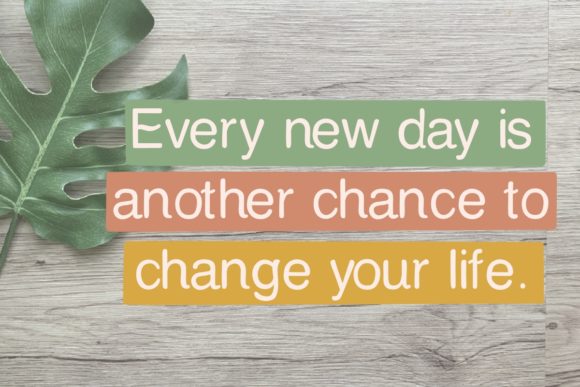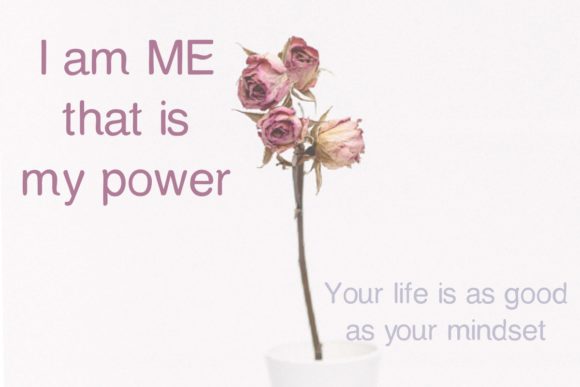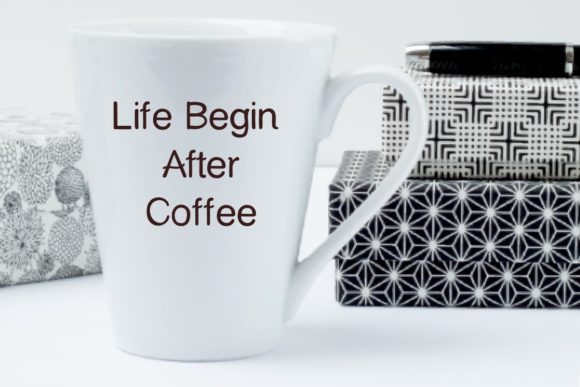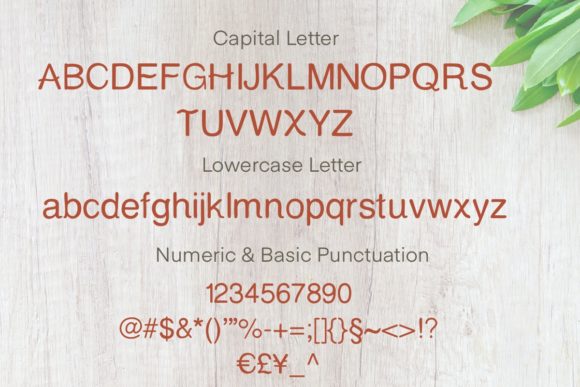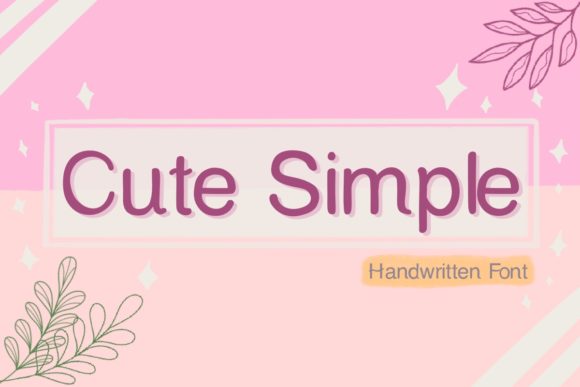
Cute Simple Font: Elevate Your Designs with a Minimal and Neat Handwritten Style
Are you tired of using the same old fonts in your designs? Look no further than the Cute Simple Font, a minimal and neat handwritten font that’s perfect for adding a touch of personality to your creative projects. With its clean and elegant lines, Cute Simple is a versatile font that can easily be matched to an incredibly large set of projects, making it a must-have for designers and crafters alike.
The Beauty of Minimalism
In a world where bold and elaborate fonts are often the norm, Cute Simple Font stands out for its understated simplicity. This font’s minimalistic approach makes it perfect for designs that require a subtle yet sophisticated touch. Whether you’re working on a logo, branding materials, or social media graphics, Cute Simple Font is sure to make your designs stand out without overwhelming them.
Endless Possibilities
One of the best things about Cute Simple Font is its incredible versatility. This font can be used in a wide range of projects, from:
- Blog and website designs
- Marketing materials and brochures
Whether you’re a professional designer or a crafty DIY enthusiast, Cute Simple Font is sure to become a go-to in your design toolkit.
Why Choose Cute Simple Font?
So, what sets Cute Simple Font apart from other fonts out there? Here are just a few reasons why designers and crafters love this font:
- Easy to read: Cute Simple Font is incredibly legible, making it perfect for designs that require a clear and concise message.
- Highly versatile: This font can be used in a wide range of projects, from digital designs to print materials.
- Unique and eye-catching: Cute Simple Font has a distinctive look that’s sure to make your designs stand out from the crowd.
- Minimal and neat: This font’s clean lines and minimalistic approach make it perfect for designs that require a sophisticated touch.
Tips for Using Cute Simple Font
Here are a few tips for getting the most out of Cute Simple Font:
- Pair it with bold fonts: Cute Simple Font looks great when paired with bold, statement fonts. Try using it as a secondary font to add contrast and interest to your designs.
- Experiment with colors: This font looks great in a wide range of colors, from bright and bold to soft and pastel. Don’t be afraid to experiment and find the perfect color to match your brand or design.
- Use it for headings and titles: Cute Simple Font is perfect for headings and titles, where its clean lines and minimalistic approach can really shine.
If you’re looking for a font that’s both minimal and neat, yet unique and eye-catching, look no further than Cute Simple Font. With its incredible versatility and clean lines, this font is sure to become a staple in your design toolkit. So why wait? Add Cute Simple Font to your creative ideas and watch as it takes your designs to the next level!
Whether you’re a designer, crafter, or DIY enthusiast, Cute Simple Font is the perfect choice for anyone looking to add a touch of personality to their creative projects. So go ahead, get creative, and see how Cute Simple Font can help you make your designs stand out!